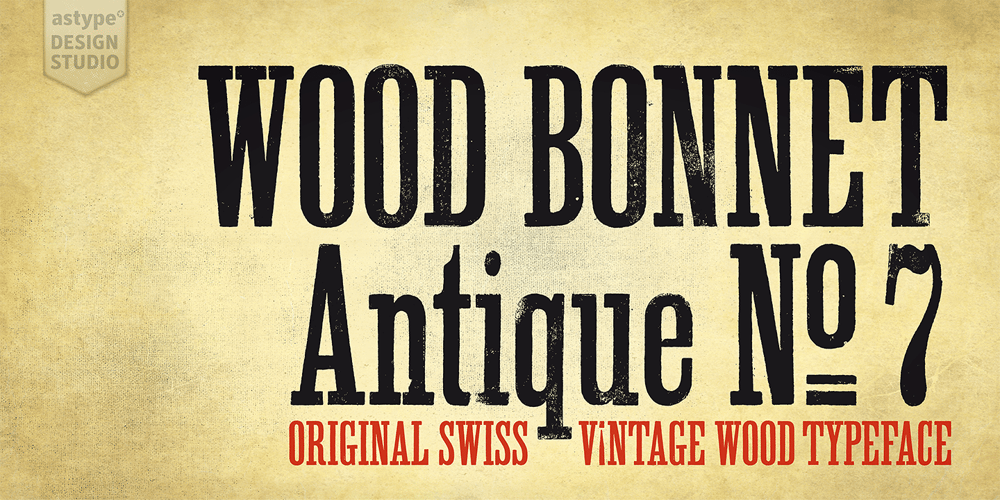
Wood Bonnet Antique No.7
Wood Bonnet Antique No.7 font
Wood Bonnet Antique No.7 Font Family was designed by Andreas Seidel and published by astype. Wood Bonnet Antique No.7 contains 1 styles and family package options. Wood Bonnet Antique No.7 is based on real vintage wood type blocks from Switzerland. The very distressed letters give a warm analogue vintage charm on printing. These kind of wood type letters were very common and often named by generic names like Roman, French or Antique followed by a catalog number. But these letters have some very quirky details hard to find else were. » pdf specimen « The font offers up to five glyph variations of all the Latin base letters, figures and some additional letters. An OpenType glyph-rotator is programmed to emulate the randomness of old school printing on live typing. All dingbats of the specimen file are included in the font data too.